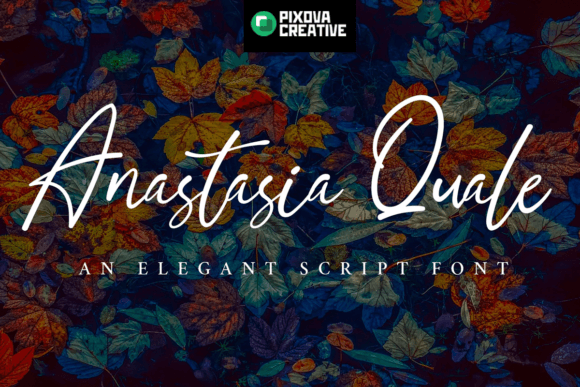
The Elusive Font: My Journey with Anastasia Quale
I still remember the project like it was yesterday. I was working on a branding campaign for a luxury wedding planner, and I needed a font that exuded elegance and sophistication. After hours of scouring through font libraries and testing various combinations, I stumbled upon Anastasia Quale. Its beautiful, handwritten script immediately caught my eye, and I knew I had found the perfect fit. In this article, I’ll share my experience with Anastasia Quale, its unique features, and how to make the most of this stunning font.
An Honest Review of Anastasia Quale
- ✨ Elegant and sophisticated design that adds a touch of class to any project
- ✅ Unique, handwritten script that stands out from more traditional fonts
- 💫 Highly legible, even at smaller font sizes
- 🎨 Versatile and suitable for a wide range of creative projects, from branding to invitations
While Anastasia Quale is an exceptional font, there are a few things to keep in mind:
- 🤔 Limited availability of stylistic alternates, which may limit design flexibility
The Designer Inspiration Behind Anastasia Quale
Anastasia Quale was designed with the intention of capturing the elegance and charm of handwritten script. While the actual design process may be shrouded in mystery, it’s clear that the creator aimed to produce a font that would add a touch of sophistication to any project. Whether inspired by historical manuscripts or modern calligraphy, Anastasia Quale is a beautiful example of typographic craftsmanship.
Q: What type of projects is Anastasia Quale best suited for?
A: Anastasia Quale is versatile and can be used for a wide range of projects, including luxury branding, wedding invitations, and high-end advertising.
Q: How does Anastasia Quale compare to other script fonts?
A: Anastasia Quale stands out from other script fonts due to its unique, elegant design and high legibility. While similar fonts may exist, Anastasia Quale offers a distinct character that sets it apart.